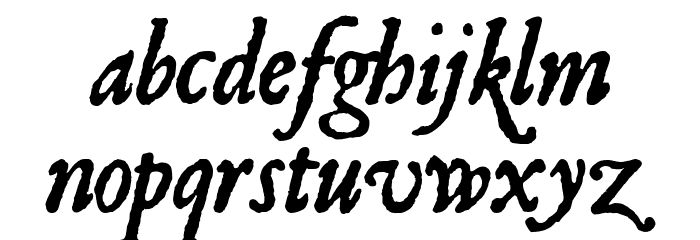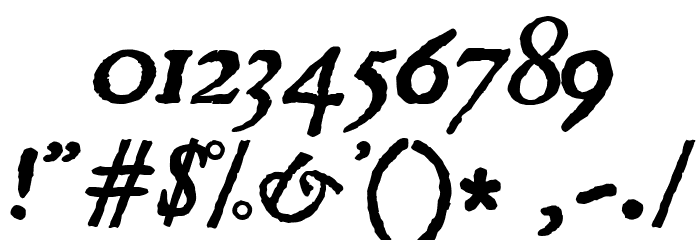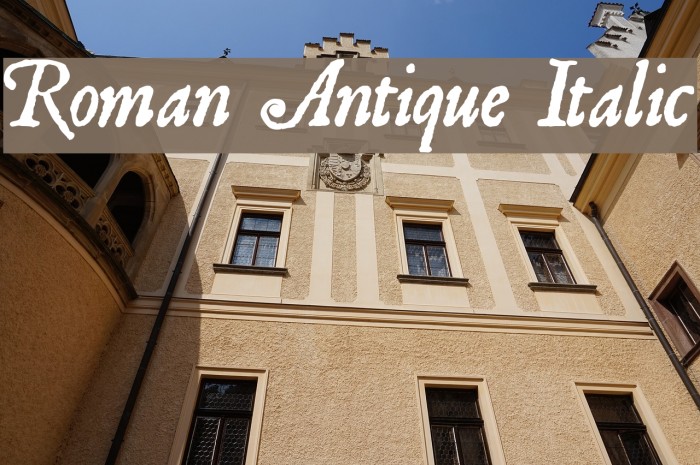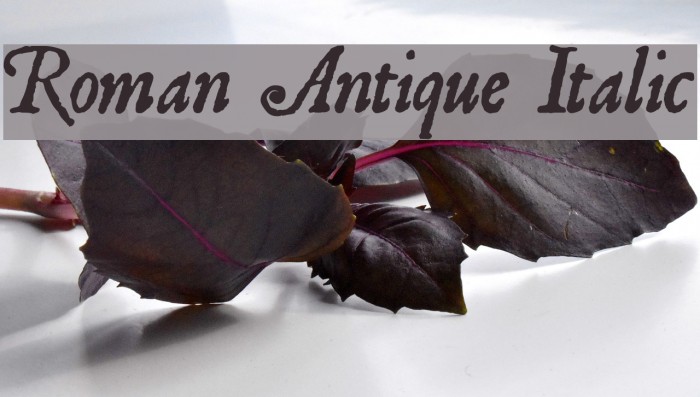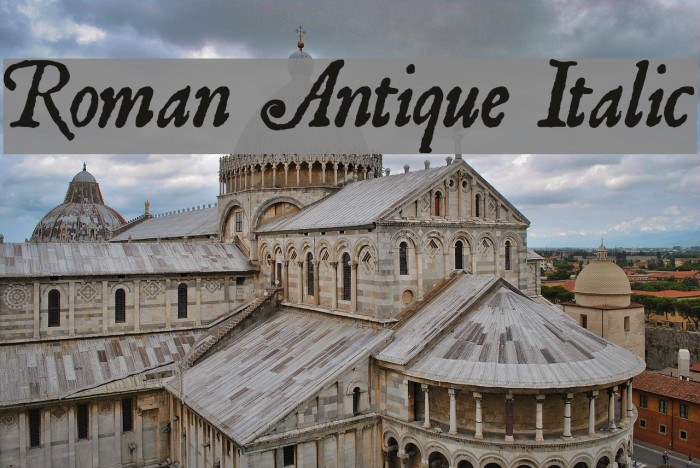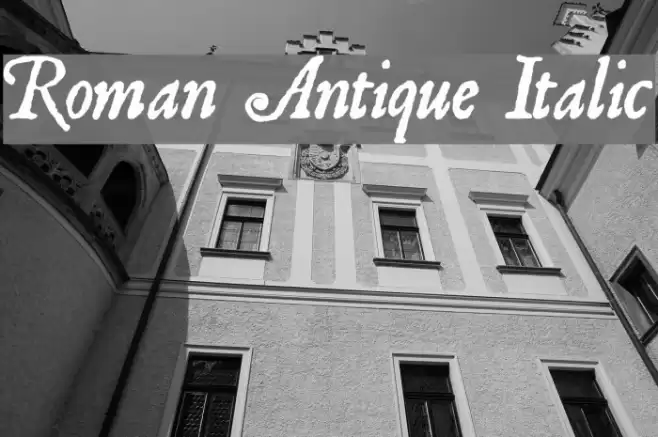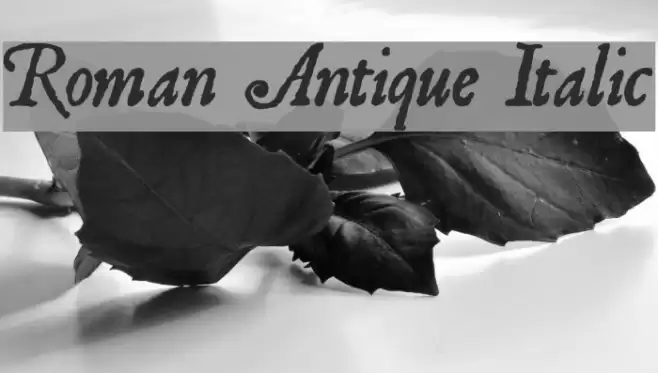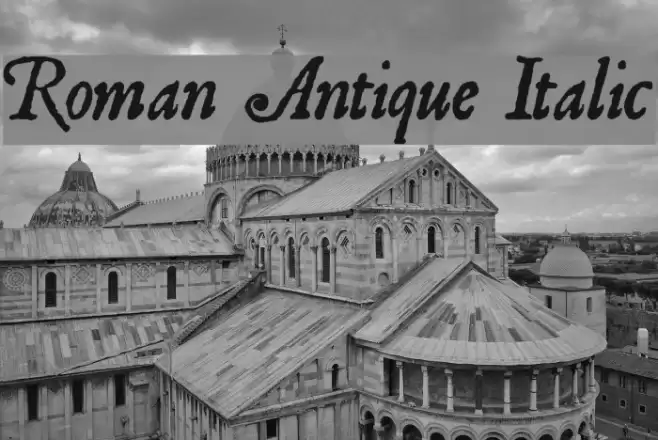
Roman Antique Italic Font
This font features a classic and elegant style with a distinct italic slant, reminiscent of traditional Roman calligraphy. The uppercase letters are bold and commanding, while the lowercase letters maintain a fluid and graceful appearance. Numbers and special characters are designed with the same attention to detail, ensuring consistency throughout. The strokes are moderately thick, providing a medium contrast that enhances readability while maintaining an artistic flair. This font exudes a sense of history and sophistication, making it ideal for projects that require a touch of antiquity and elegance.
A classic italic font with medium contrast and elegant strokes.
- Proposed Projects: Ideal for historical documents, wedding invitations, book covers, and branding that requires a classic touch.
- Overall Style: Classic
- Use Case: Headlines, Logos, Invitations